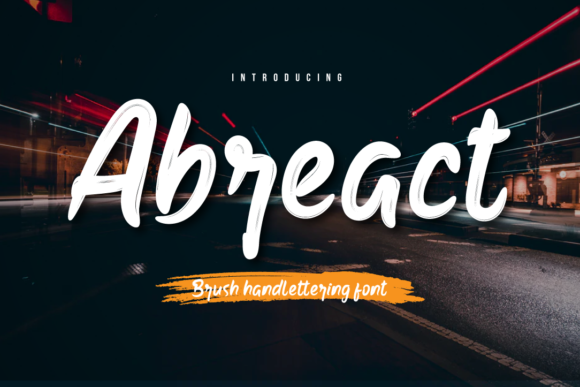
The Perfect Brush for Your Creative Stroke
Have you ever been in a moment where a spark of creativity strikes, and you know exactly what you want to create? The world around you fades away, and all that’s left is the blank canvas and the thrill of bringing your vision to life. For designers, these moments are the holy grail – a time when anything is possible and the only limit is your imagination.
That’s exactly why we’re excited to introduce the Abreact Font, a stunning brush handwritten font that’s about to become your new best friend. With its unique, expressive strokes, this font is the perfect tool for making original and outstanding designs. Whether you’re working on branding, advertising, or packaging, the Abreact Font is sure to elevate your work to the next level.
- Unique Characteristics: This font features a unique blend of modern and vintage elements, making it ideal for designs that require a touch of sophistication and elegance.
Abreact Font Review
Abreact font has some really interesting aspects that caught my attention. ✨ The font has a unique, abstract style that works well for titles and headings, giving it a modern touch. It’s perfect for creating a visually appealing design. ✨ Additionally, the font is highly customizable, with a wide range of weights and styles available. This makes it an excellent choice for designers who want to create complex and layered designs.
One of the most notable features of Abreact is its wide language support. This makes it a great choice for designers who need to create content in multiple languages. ✨ However, the font’s abstract style may not be suitable for all types of content. ⚠️ For example, it may not be the best choice for body text, as it can be difficult to read in large quantities.
- Works well for titles and headings
- Wide language support
Overall, I think Abreact font is a great choice for designers who want to create modern, abstract designs. However, it may not be suitable for all types of content. With some careful consideration and use, Abreact can be a powerful tool in a designer’s toolkit.
Tips: Use Abreact Font for creative headings and titles to add a touch of elegance to your designs.
Tips: Use Abreact Font for headings and titles to add a touch of sophistication to your presentations and documents.
Abreact Font is suitable for:
- Creative headings and titles
Alternatives to Abreact Font for Designers
Inter Font is a highly legible sans-serif typeface designed for digital interfaces. It’s ideal for body text, navigation menus, and other elements where readability is crucial.
Inter Font is similar to Abreact Font in its clean and modern design, but it has a more geometric feel and is optimized for screen display. It’s also a more versatile font, suitable for a wide range of digital applications.
Q: Can I use Abreact Font in conjunction with other fonts, and are there any compatibility issues?
Abreact Font is designed to work well with other sans-serif fonts. However, if you’re using a font with a significantly different x-height or metrics, it may affect the overall readability of your project. It’s recommended to use fonts with similar design principles and metrics to ensure optimal compatibility.